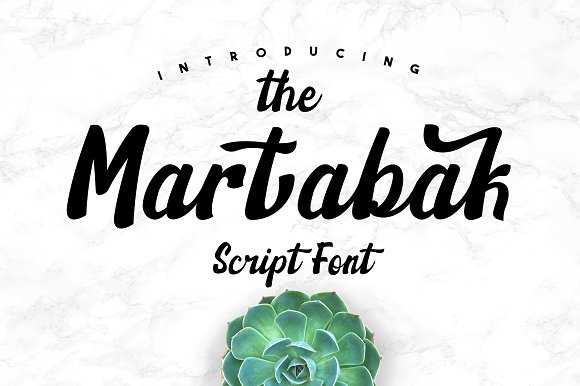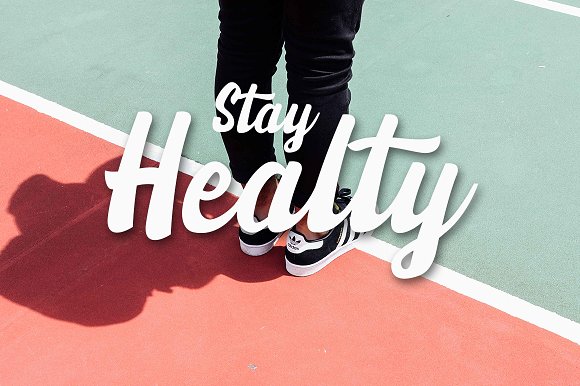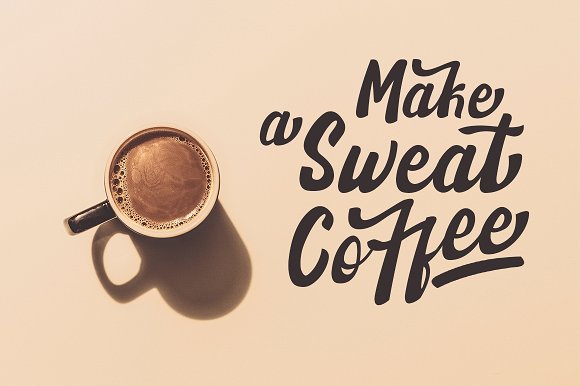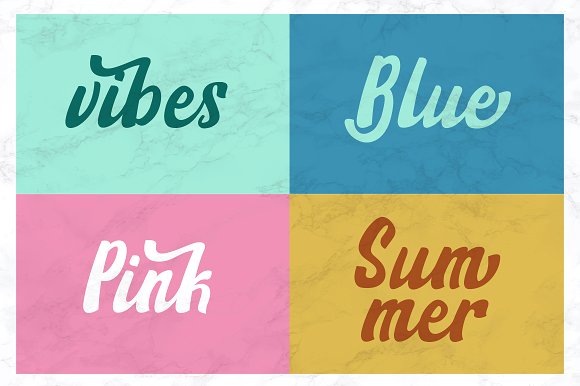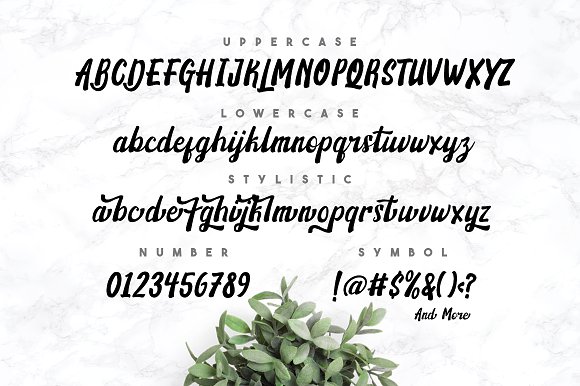
Martabak Script Font
a MARTABAK SCRIPT font is modern handmade font, dinamic and also has beautiful opentype features . Can make it easier to convey the message in your design. Use for awesome display, labeling, clothing, movie sceen, poster, movie title, gigs, album covers, logos, and much more.